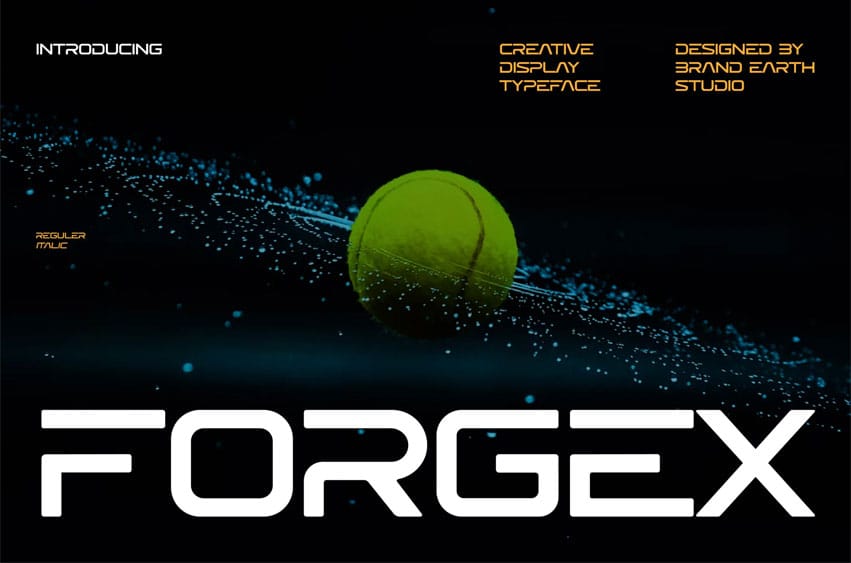
ForgeX Font is a sleek and futuristic creative display font designed for modern and energetic visuals. It features smooth, rounded letterforms with dynamic cuts and a sci-fi aesthetic, making it perfect for sports branding, tech projects, esports, posters, and creative digital designs.
Available in Regular and Italic styles, Forgex brings a bold and innovative feel to any project. Its clean yet powerful look is ideal for capturing attention and delivering a high-energy, forward-thinking impression!
- Regular & Italic Font Style
- Ligatures & Alternate